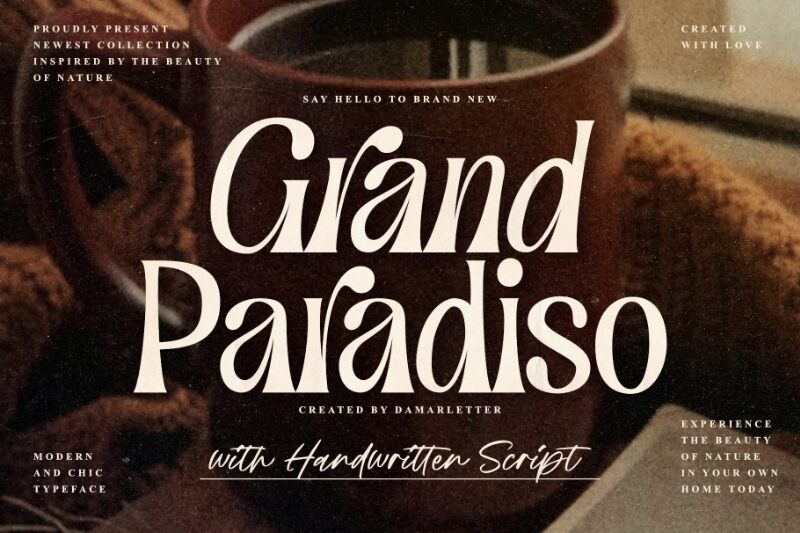
Grand Paradiso, designed by Damarletter, is a captivating display font that exudes a groovy, retro-inspired elegance. Its striking letterforms, with their unique curves and dynamic flourishes, evoke a sense of playful sophistication. The font's bold, yet artfully balanced composition lends itself to a wide range of design applications, from eye-catching headlines to impactful branding elements.
This font's versatility shines through its ability to seamlessly transition between modern and vintage aesthetics. Its distinctive style would elevate projects seeking to convey a sense of nostalgic charm, vintage flair, or a bold, contemporary edge. Whether designing retro-inspired posters, crafting memorable album covers, or creating captivating signage, the Grand Paradiso font offers designers a versatile and visually striking tool to bring their creative visions to life.
Grand Paradiso
Damarletter
Ardian Nuvianto